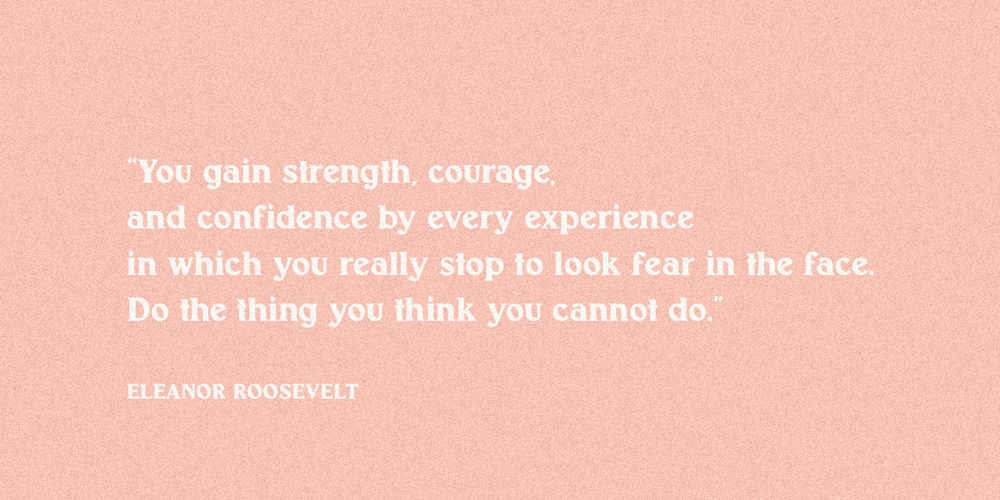
Noelle Font Family was designed by Jen Wagner and published by Jen Wagner Co.. Noelle contains 2 styles and family package options. Noelle is a classic, minimalist serif and script duo that functions beautifully in modern design work. Noelle serif features geometric, clean lines; modern serifs, and just a touch of vintage while Noelle script brings in femininity and delicateness. Noelle looks gorgeous in logo work as well as web headings and printed materials.